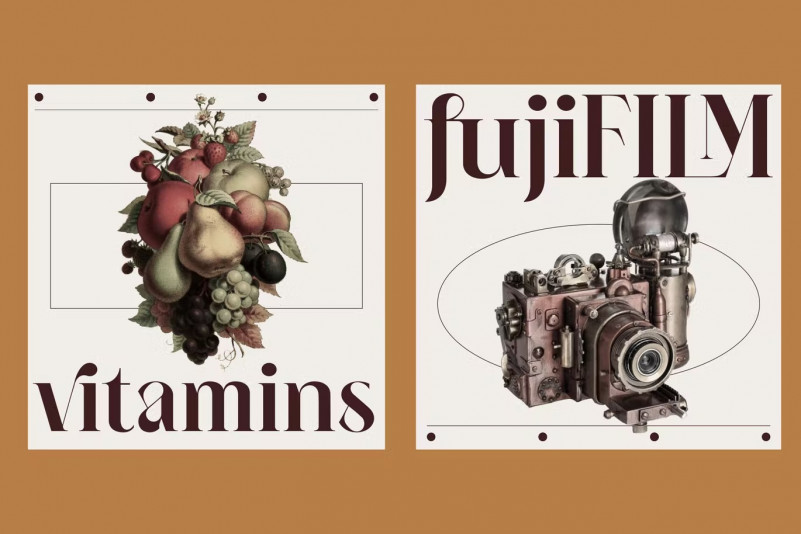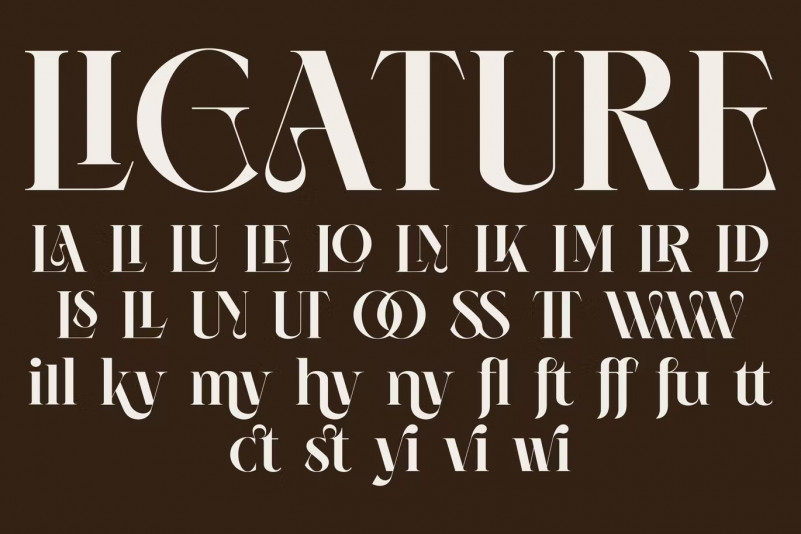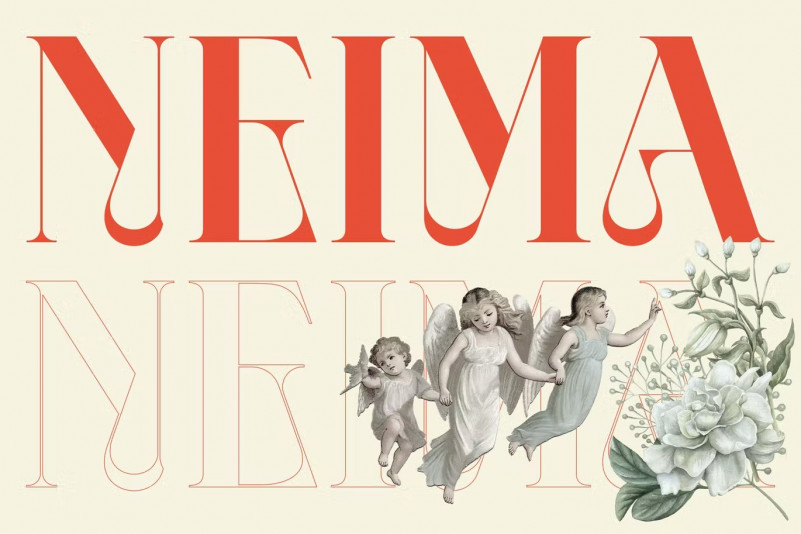
NEIMA Font
Neima is high contrast serif font features a mixed modern-classic design. Neima supports multilingual languages, numbers, punctuation and alternative-ligatures. Create unique & beautiful logotype, use it as an elegant solution for your next magazine layout, or choose Neima for any graphics that require a sleek look with an elegant flair.